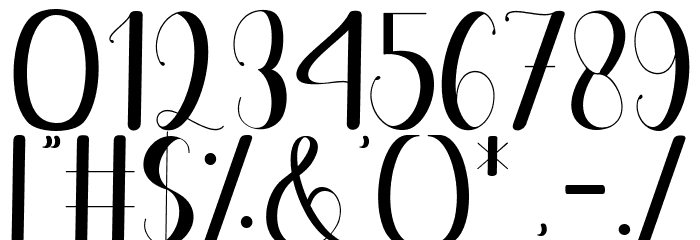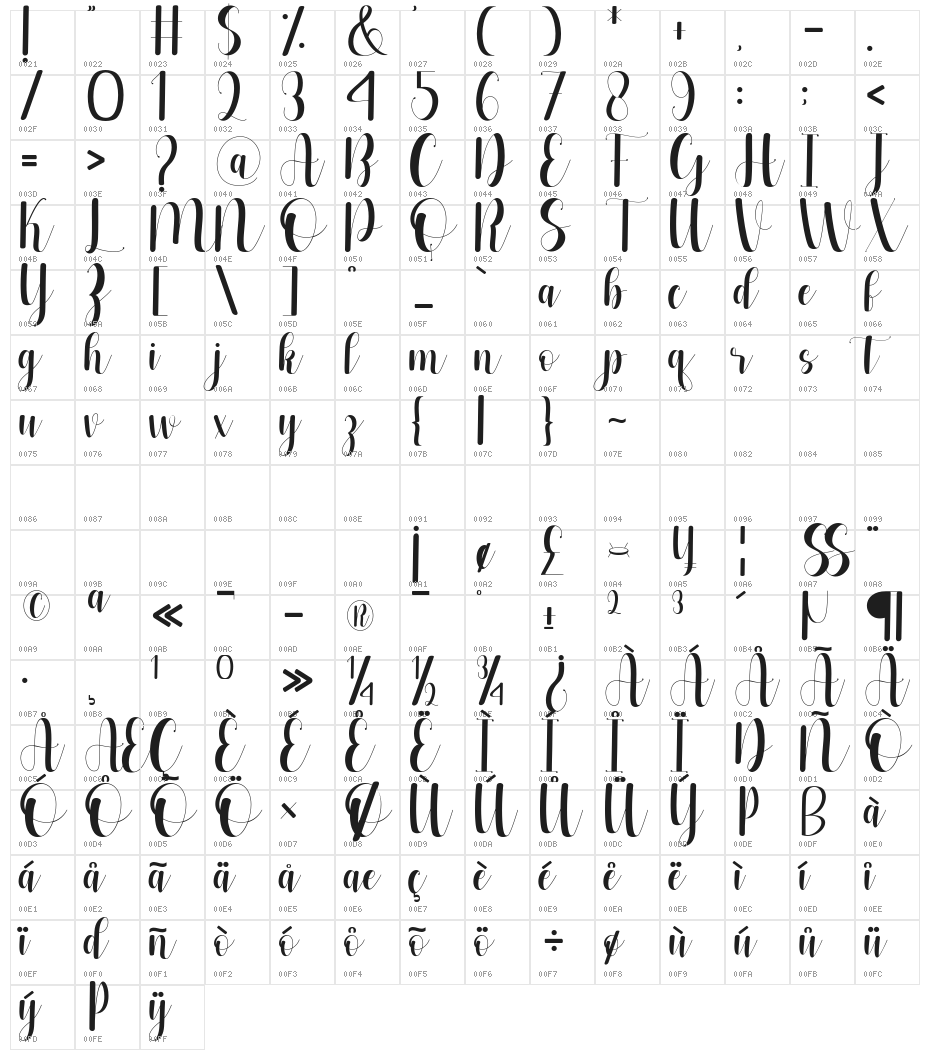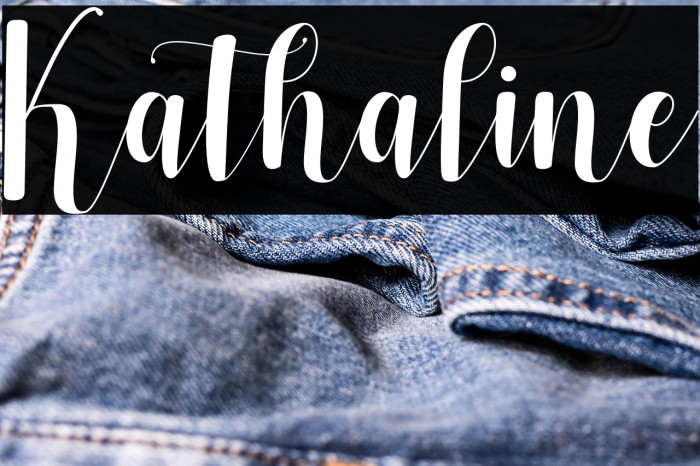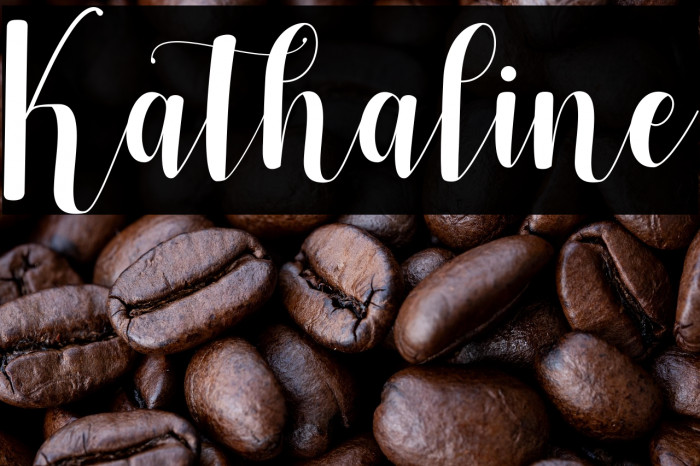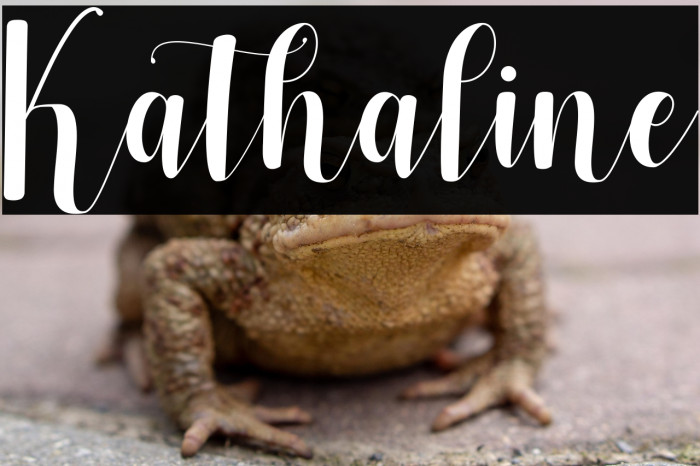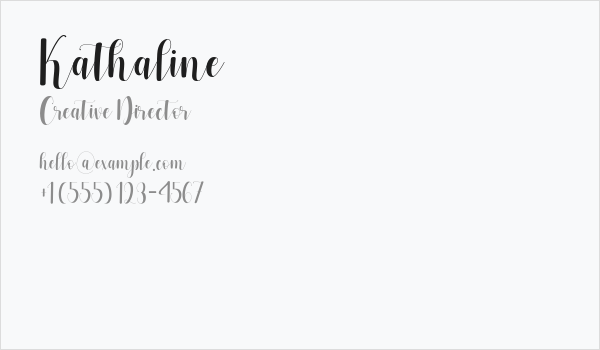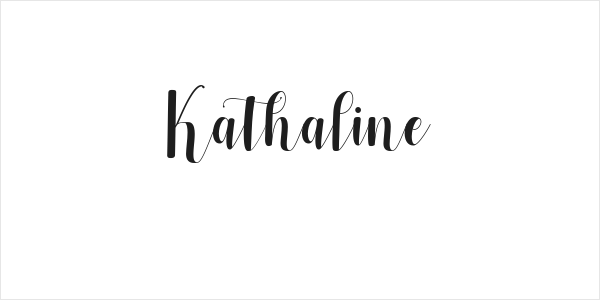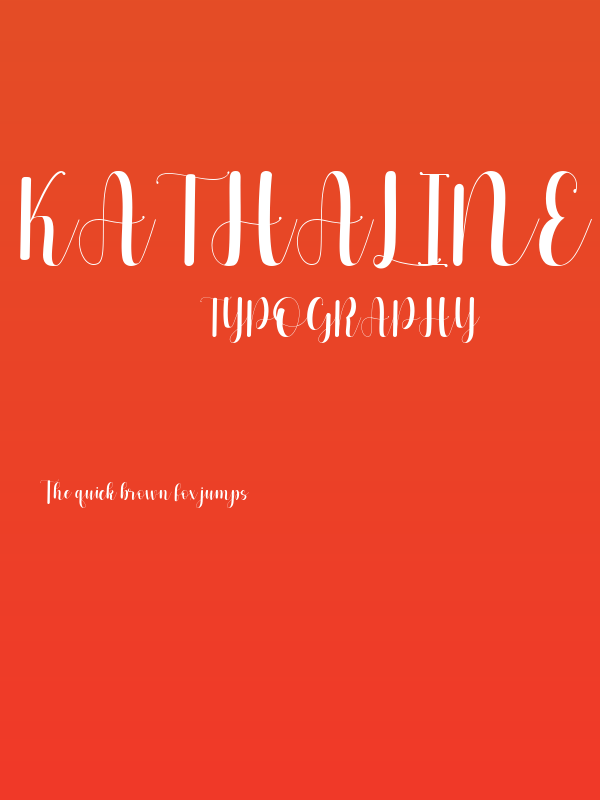
Kathaline Font
Kathaline Description
This elegant script font features a flowing, cursive style with high contrast between thick and thin strokes. The uppercase letters are tall and graceful, with sweeping curves that give a sense of movement and sophistication. Lowercase letters maintain a consistent style, with loops and flourishes that enhance the font's decorative appeal. The numerals are uniquely styled to match the overall aesthetic, while the special characters are seamlessly integrated, maintaining the font's cohesive look. This font is perfect for adding a touch of elegance and charm to any design project.
| Use Case | Logos, Invitations, Decorative Text |
| Proposed Projects | Ideal for wedding invitations, elegant branding, greeting cards, and upscale packaging. |